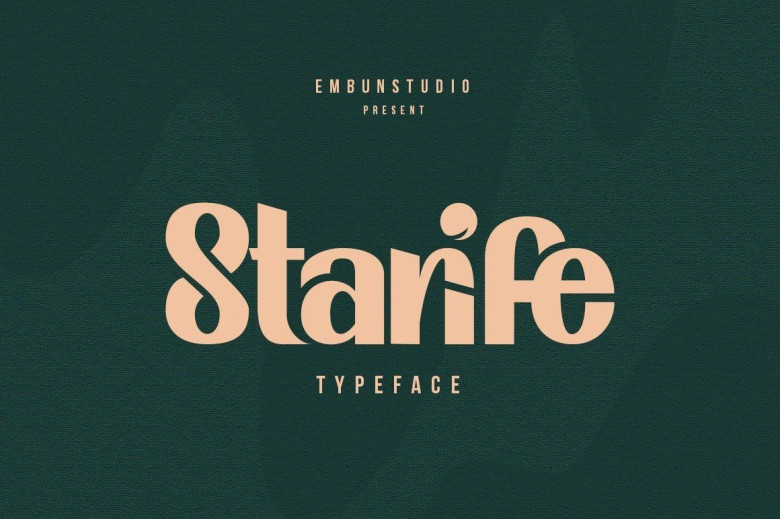
Starife Modern Display Typeface
Starife Font is an elegant, classic, yet modern display typeface. Inspired by the beauty of the city, Starife aim to be one of sophisticated display font. It has clean and contrast, bold and chic.